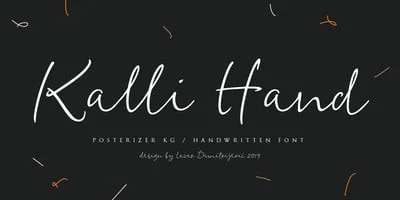
Kalli Hand Font
The Kalli Hand Font excels in various design applications including authentic handwriting branding, artisanal craft packaging, personalized greeting cards, handmade product marketing, creative workshop materials, artistic journal designs, custom calligraphy projects, boutique bakery signage, intimate wedding stationery, and creative studio identities that demand genuine handcrafted charm and authentic human touch.
What makes the Kalli Hand Font exciting is its authentic recreation of natural handwriting that captures the organic beauty and personal character of genuine hand lettering through carefully observed letterforms that preserve the spontaneity and humanity of actual penmanship. This typeface demonstrates exceptional authenticity through its faithful representation of handwritten variations, natural flow, and the subtle imperfections that make handwriting so personally engaging. The font's handcrafted personality makes it perfect for artisans and creative businesses seeking to communicate authentic craftsmanship, personal dedication, and the irreplaceable value of human creativity through typography that genuinely looks and feels handwritten.
The Kalli Hand Font family typically includes natural weight variations that reflect different writing tools and pressures, featuring organic alternate characters with authentic handwriting variations and contextual ligatures that enhance the natural handwritten flow. These family options often include stylistic alternates with different pen styles, natural connecting strokes, and handwriting-inspired ornaments that provide designers with comprehensive tools for creating genuinely authentic handwritten typography that celebrates human creativity and artisanal craftsmanship.
Creative entrepreneurs and artisanal brands consistently select Kalli Hand Font for projects requiring typography that establishes authentic human connection and communicates handcrafted quality. This typeface delivers exceptional performance in craft marketing, personal branding, and artisanal communications where demonstrating genuine human touch and celebrating handmade values is essential for customer appreciation. The font's handwritten character makes it particularly effective for creative industries and personalized product applications. Download Kalli Hand Font today to access this authentic typeface that transforms communications with its genuine handwriting beauty and artisanal sophistication, creating compelling experiences that celebrate the irreplaceable value of human creativity while maintaining the natural charm that makes handwritten communication so personally meaningful.